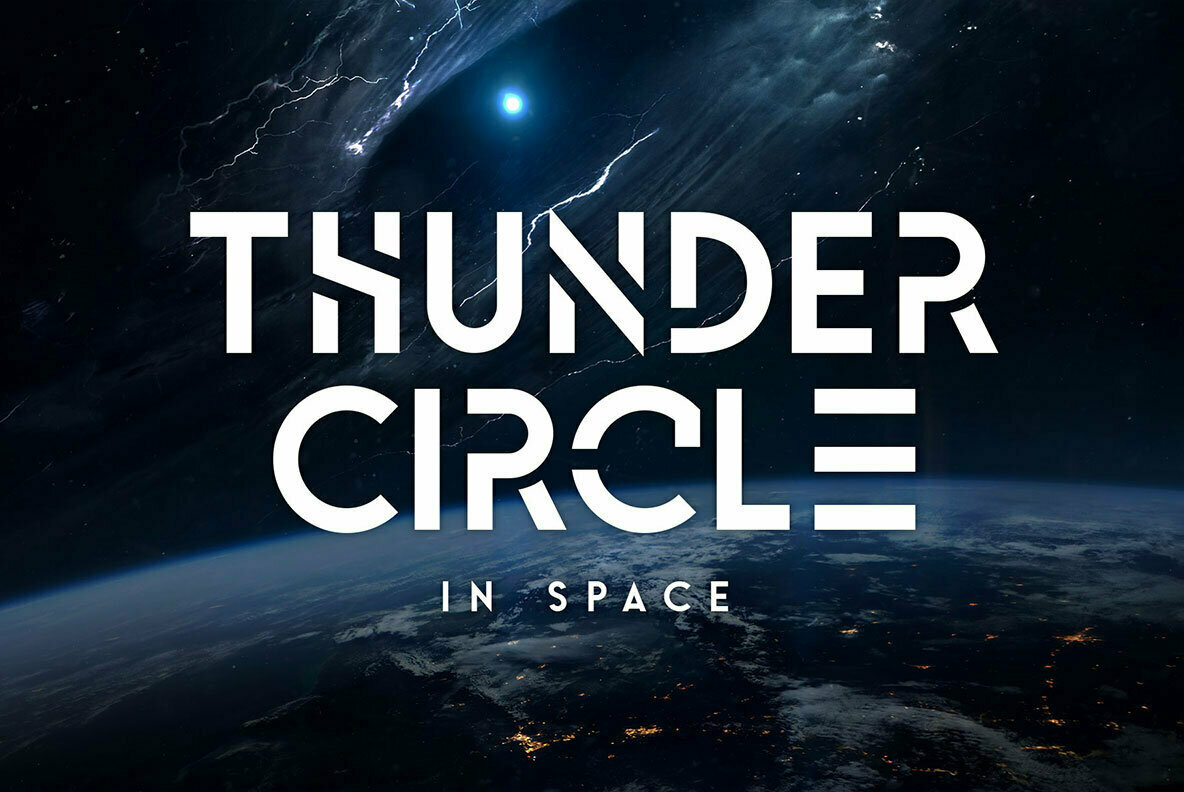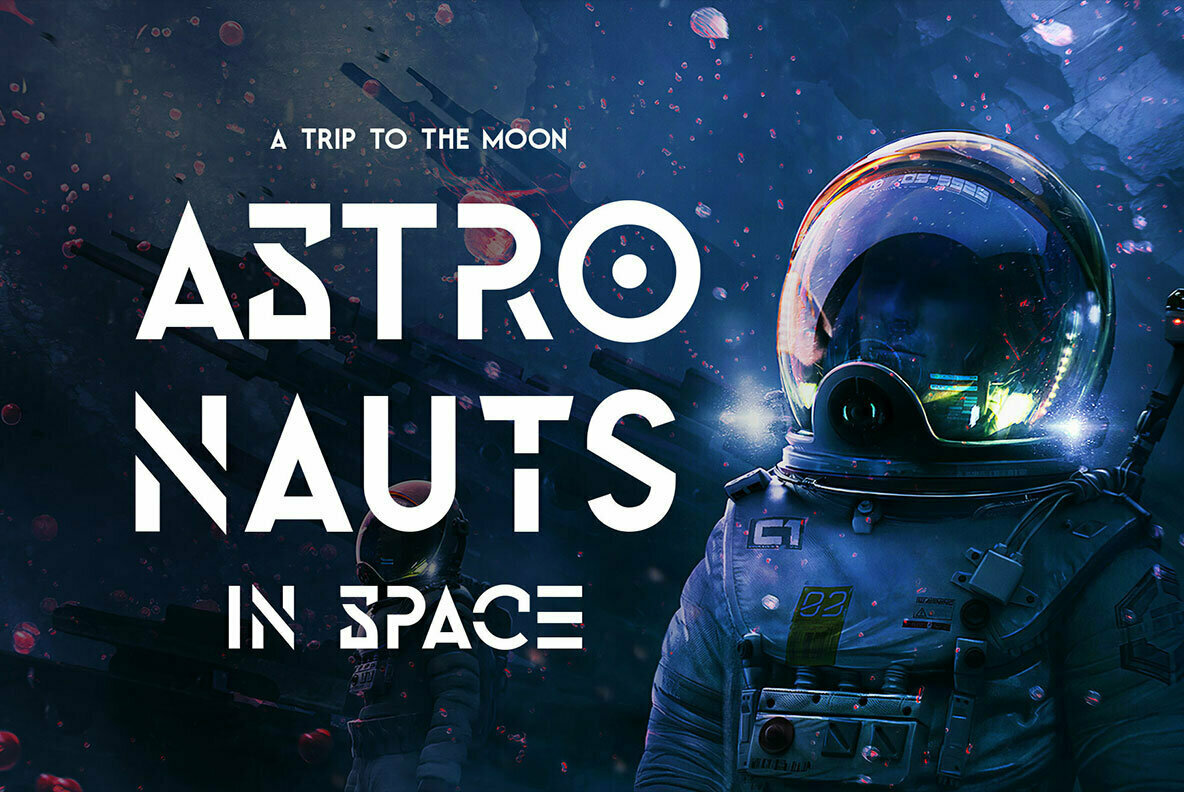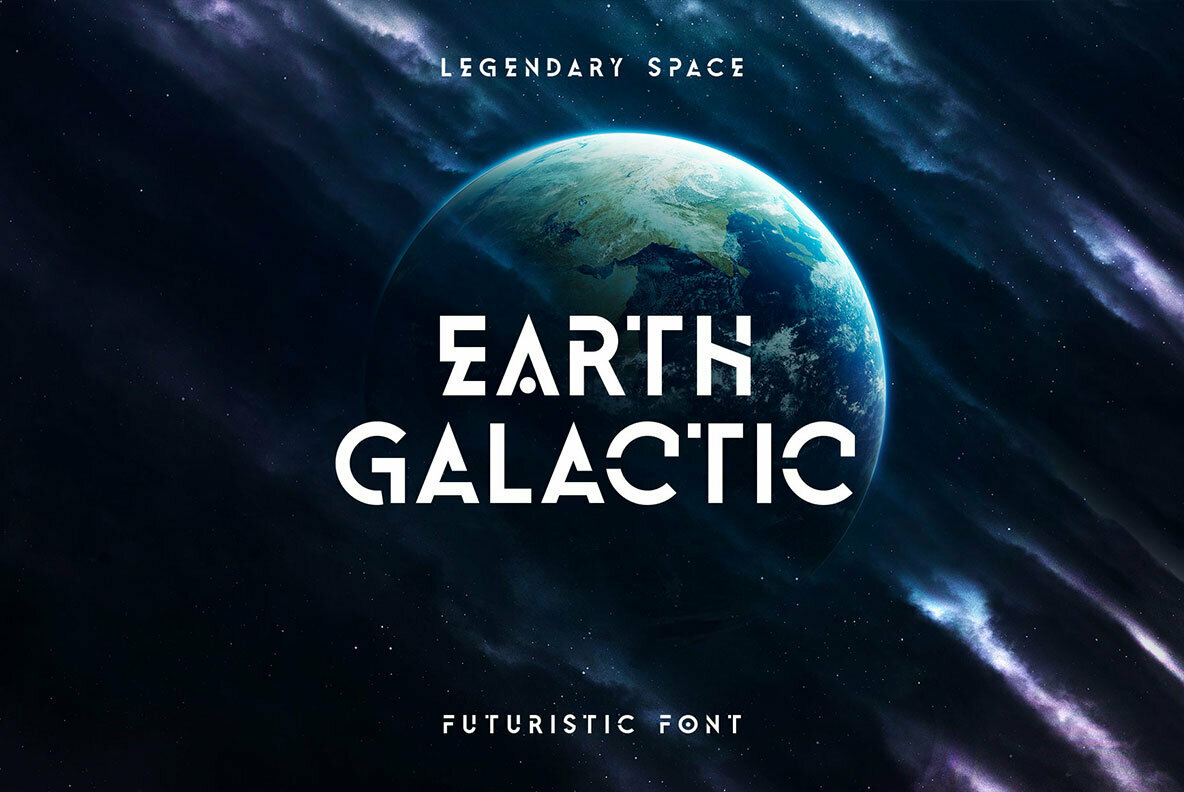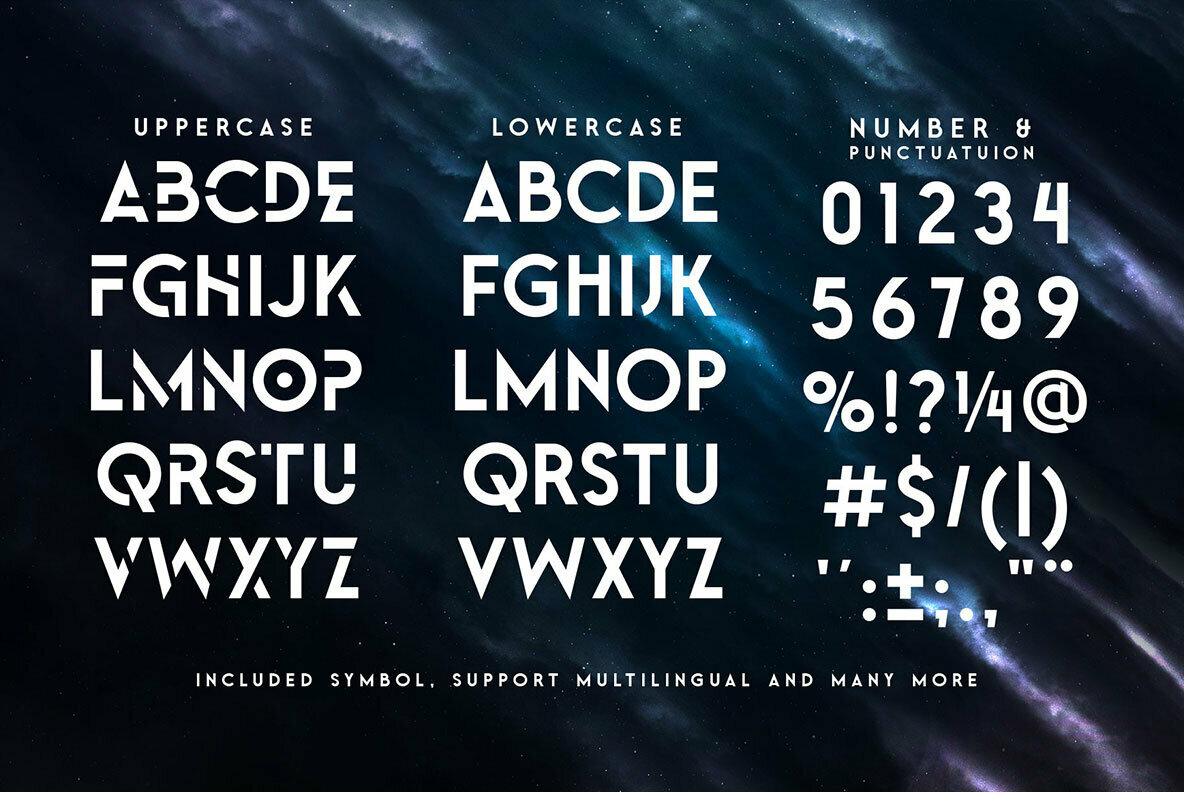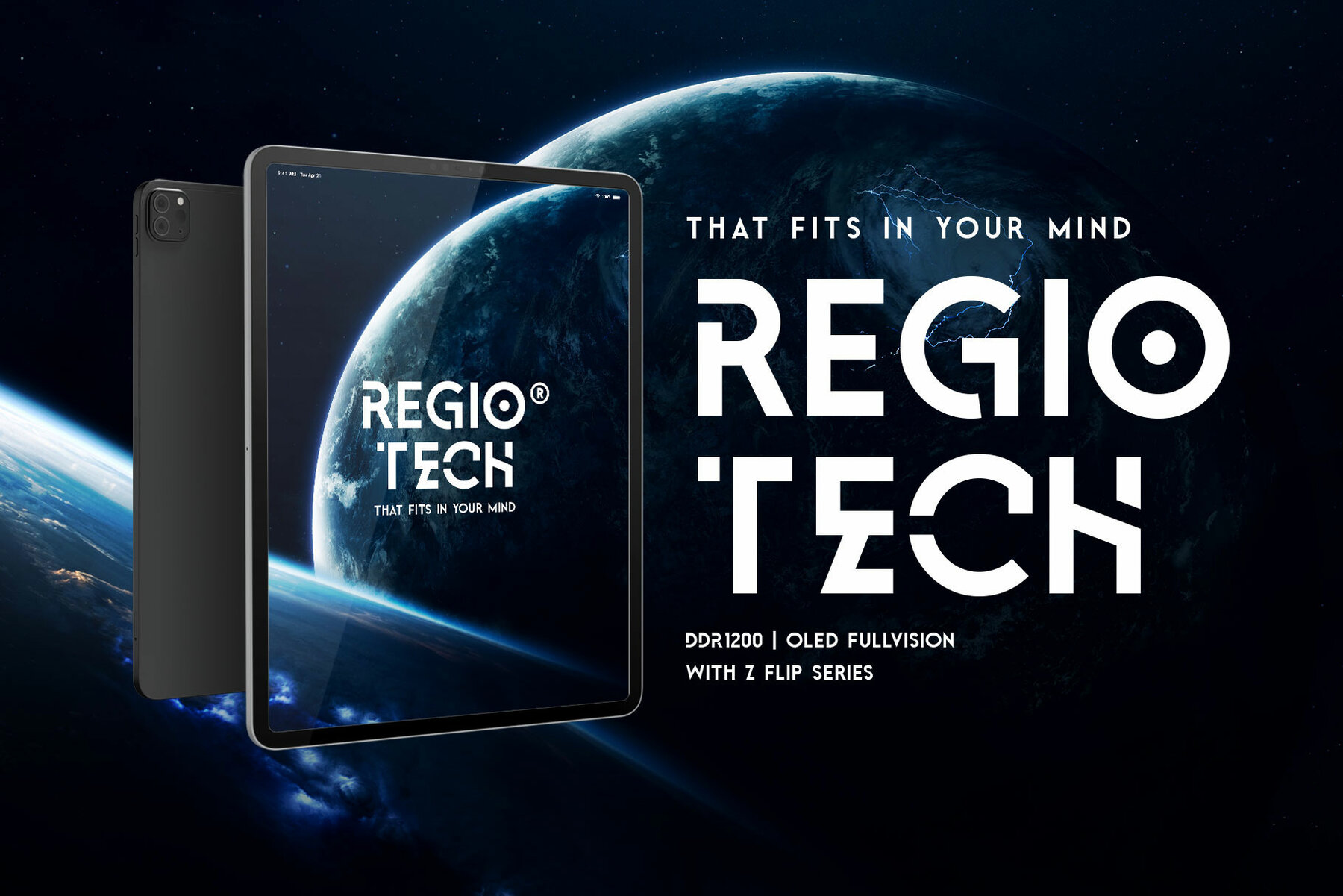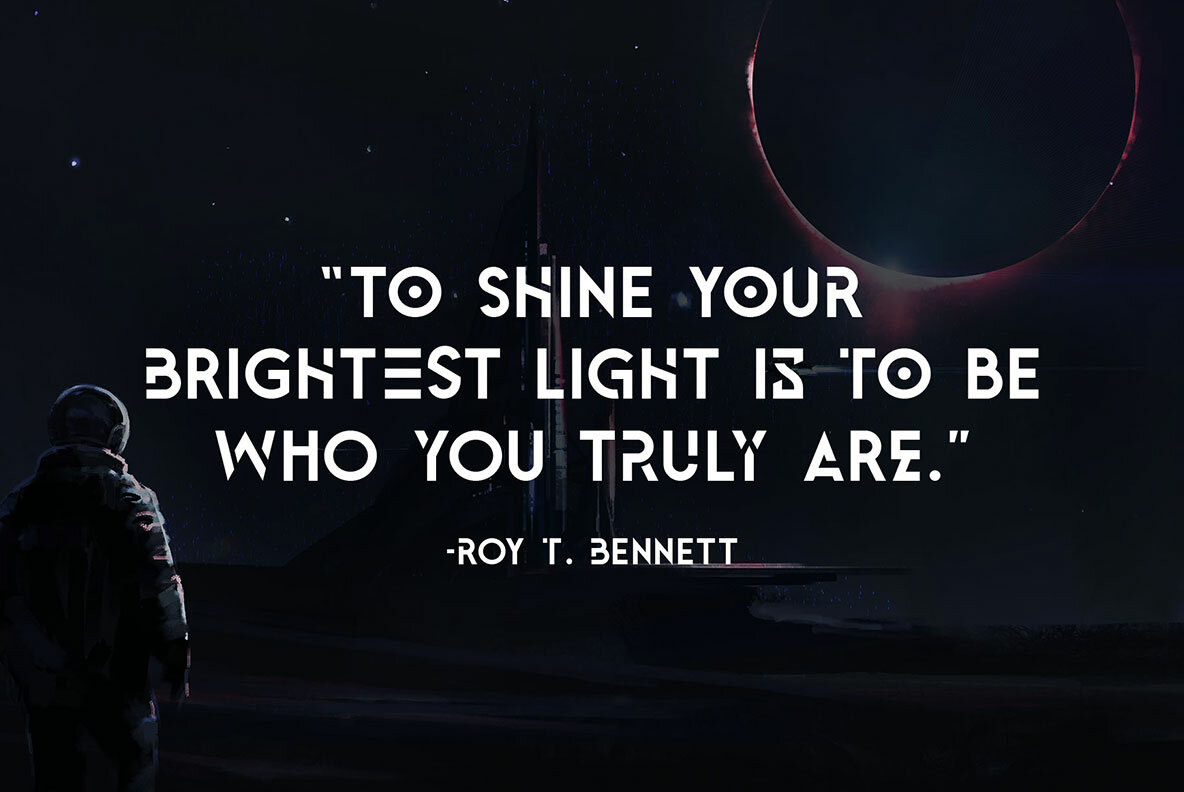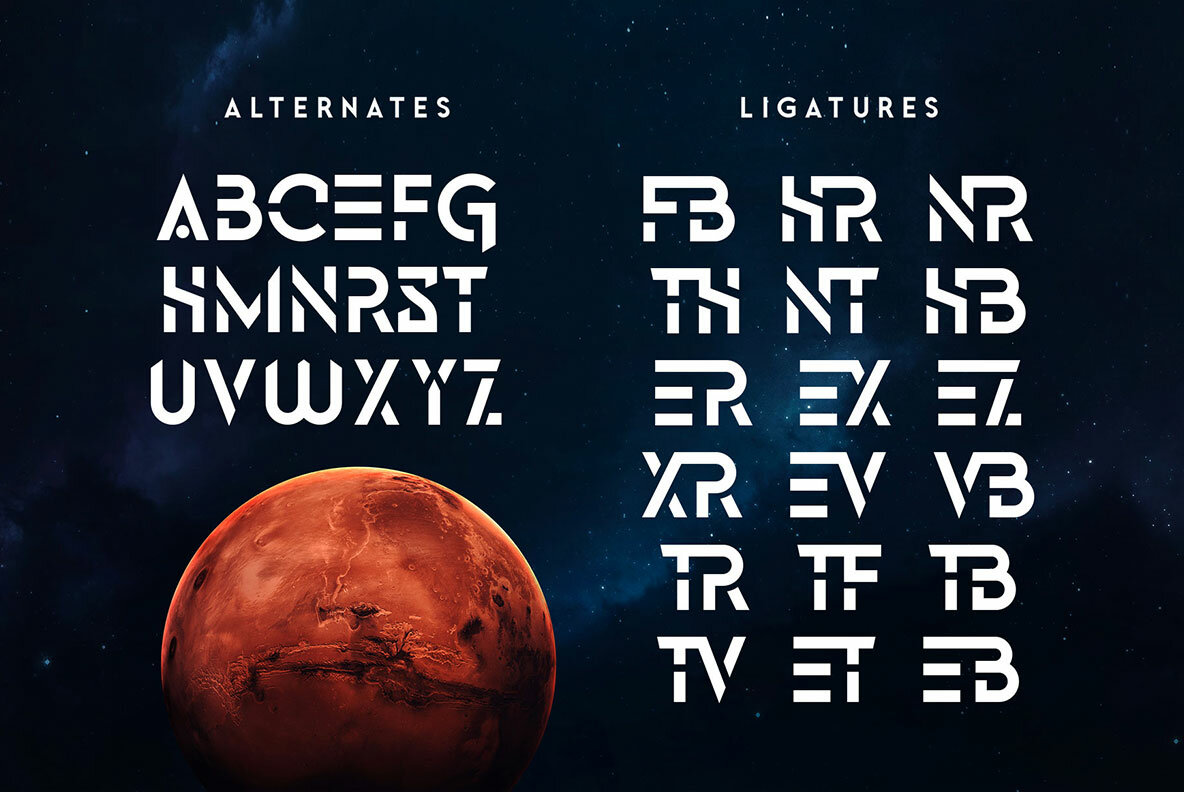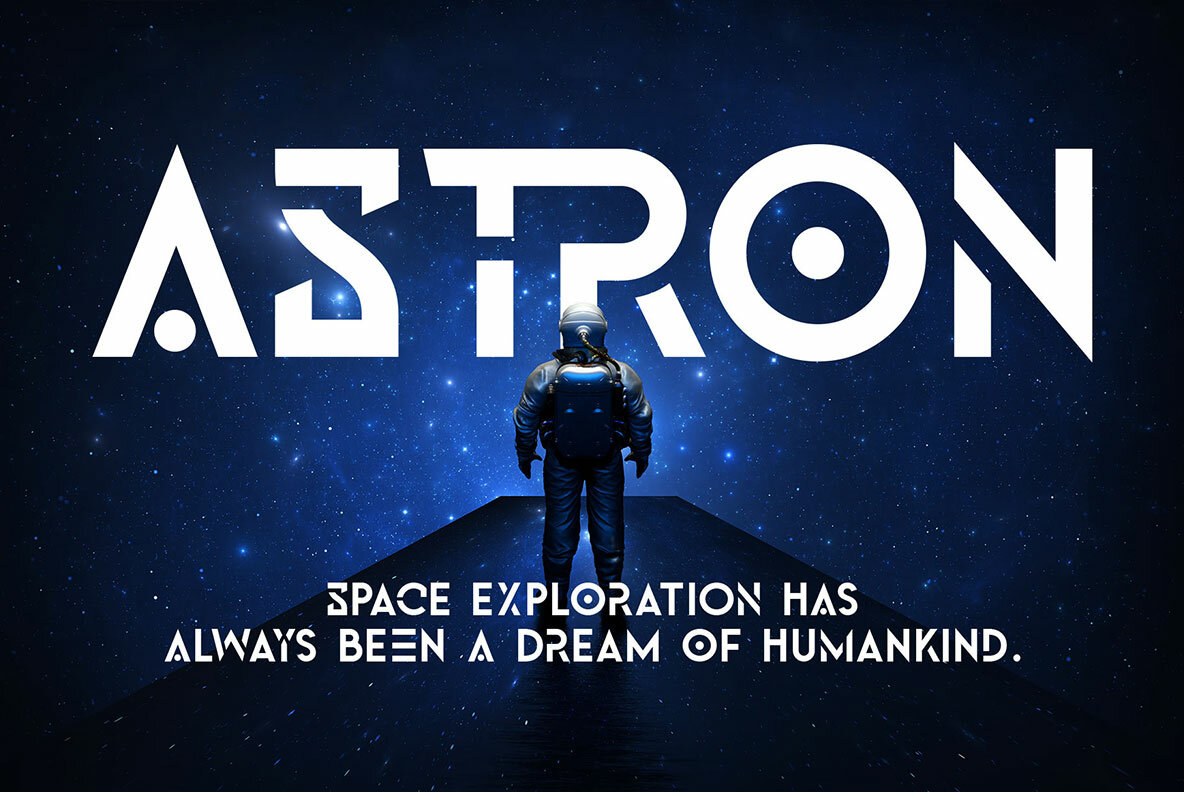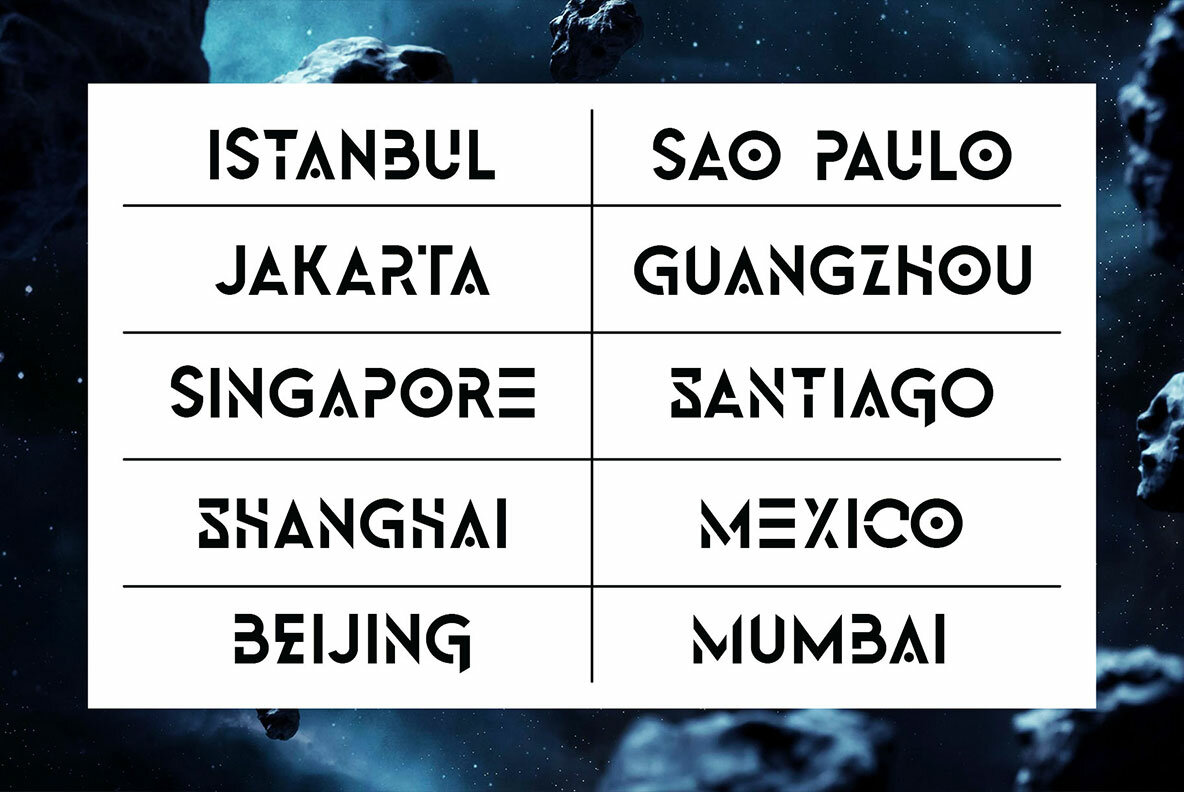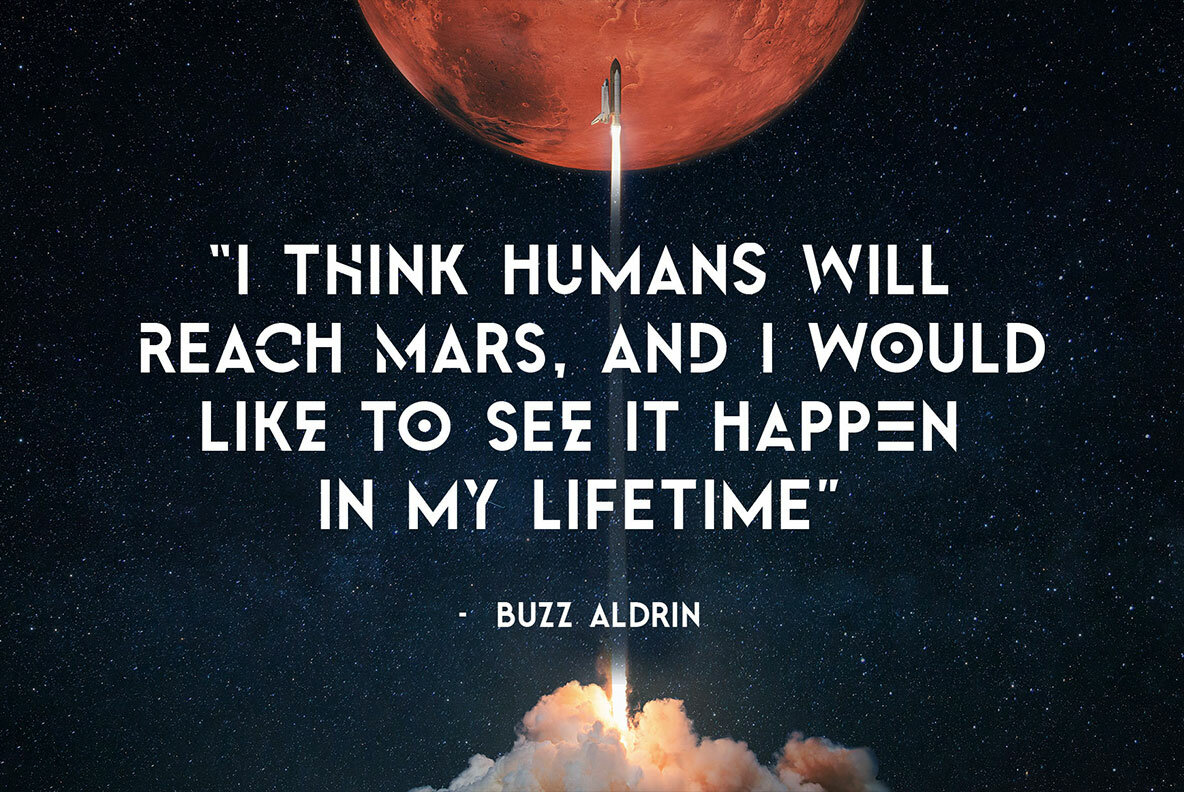
Warzone: Minimalist Techno Meets Modern Design
Warzone embraces a minimalist techno aesthetic rooted in sans serif design. It features a distinctive stencil concept and sharp edges, offering a versatile, futuristic feel. Ideal for a range of creative projects from sci-fi to hipster, Warzone's geometric shapes provide a digital and modern flair.
• Alternate Characters – Offers variations to enhance your designs.
• All-Caps with Solid Lowercase – Provides a bold, consistent look.
• Futuristic Theme – Perfect for digital and techno-style projects.